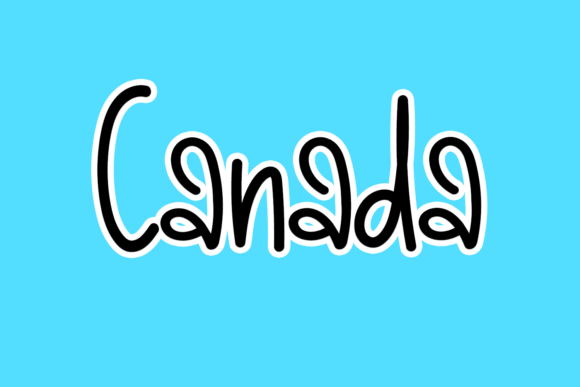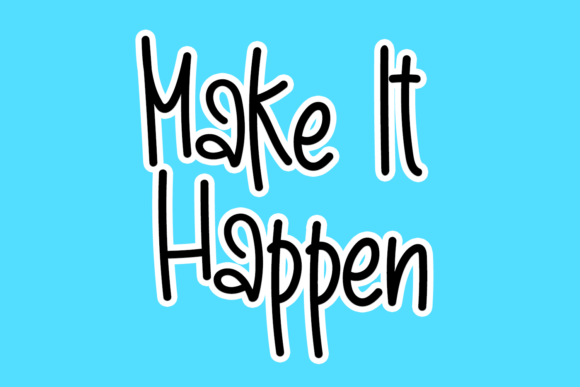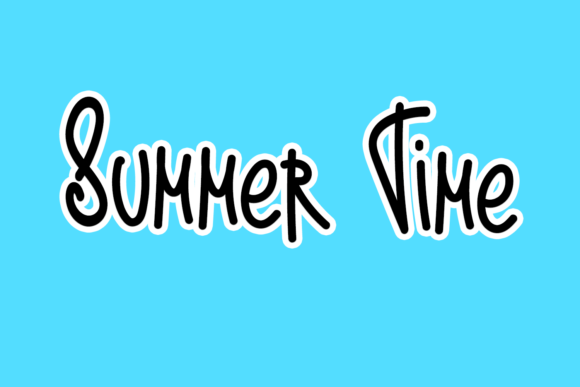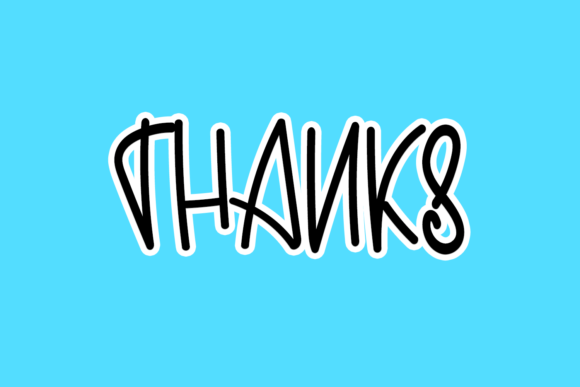
Introducing Americano Font: The Cute and Quirky Handwritten Font for All Your Creative Needs
Are you a designer, crafter, or digital artist looking for a unique and playful font to add a personal touch to your projects? Look no further than Americano Font! This adorable handwritten font is perfect for a variety of creative applications, from crafting and digital designing to presentations and greeting cards making.
What Makes Americano Font So Special?
Americano Font is a one-of-a-kind handwritten font that boasts a quirky and charming personality. Its distinctive features make it an excellent choice for designers and crafters who want to add a dash of whimsy and fun to their work. Here are some of the key characteristics that set Americano Font apart:
- Cute and Quirky: Americano Font has a playful and endearing quality that makes it perfect for projects that require a lighthearted and humorous touch.
- Handwritten: The font’s handwritten nature gives it a personal and organic feel that’s perfect for creating unique and eye-catching designs.
- Versatile: Americano Font is incredibly versatile and can be used for a wide range of creative projects, from digital designs to handmade crafts.
Whether you’re a professional designer or a crafty hobbyist, Americano Font is an excellent addition to your font collection. Here are some of the ways you can use Americano Font to elevate your projects:
Digital Designing
Americano Font is perfect for digital designers who want to add a personal touch to their work. Use it to create:
- Social Media Graphics: Add a playful touch to your social media graphics, such as Instagram posts, Facebook covers, and Twitter headers.
- Blog Posts: Use Americano Font to create eye-catching blog post titles, headings, and captions.
- Digital Invitations: Create custom digital invitations for parties, events, and gatherings.
Crafting
Americano Font is also perfect for crafters who want to add a personal touch to their handmade projects. Use it to create:
- Handmade Cards: Add a playful touch to your handmade greeting cards and gift tags.
- Scrapbooking: Use Americano Font to create custom journaling and captions for your scrapbooking projects.
- DIY Signs: Create custom signs and banners for parties, events, and gatherings.
Presentations and Greeting Cards Making
Americano Font is also perfect for creating presentations and greeting cards that require a personal touch. Use it to:
- Create Engaging Presentations: Add a playful touch to your presentations, such as title slides, headings, and bullet points.
- Make Custom Greeting Cards: Use Americano Font to create custom greeting cards for special occasions, such as birthdays, weddings, and holidays.
In conclusion, Americano Font is a cute and quirky handwritten font that’s perfect for designers, crafters, and digital artists who want to add a personal touch to their projects. Its versatility, playfulness, and charm make it an excellent addition to any font collection. So why wait? Download Americano Font today and start creating unique and eye-catching designs that showcase your personality and style!